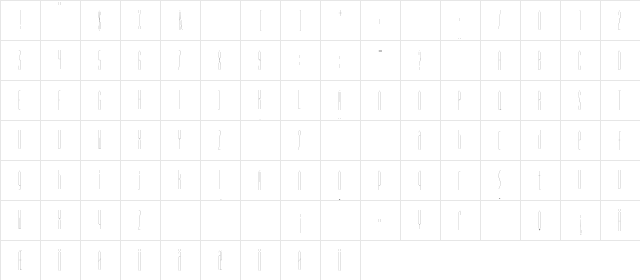
SpiritLight Regular
Design Context for SpiritLight Typeface
SpiritLight is a composed and adaptable typeface that performs quietly and consistently across a wide range of design contexts. The delicate stroke weight brings airiness and refinement to layouts.